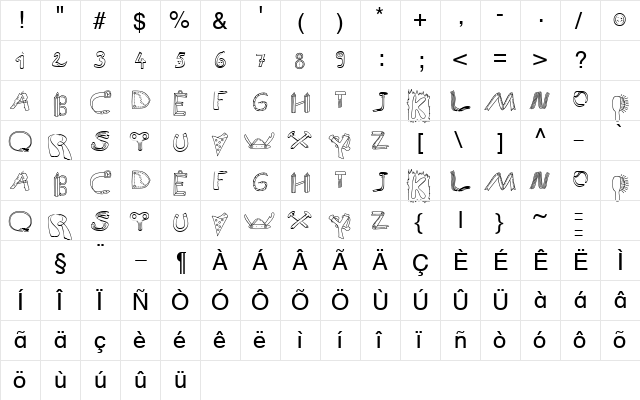
SP Anlaut9 DB Normal Font Preview
SP Anlaut9 DB Normal
Design Context for SP Anlaut9 DB Typeface
SP Anlaut9 DB is a composed and adaptable typeface that performs quietly and consistently across a wide range of design contexts.